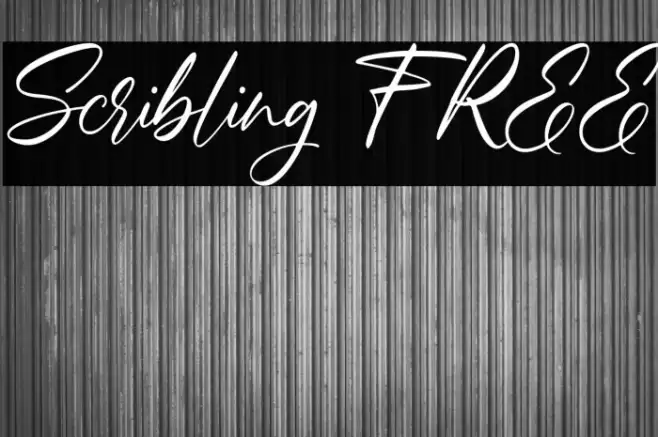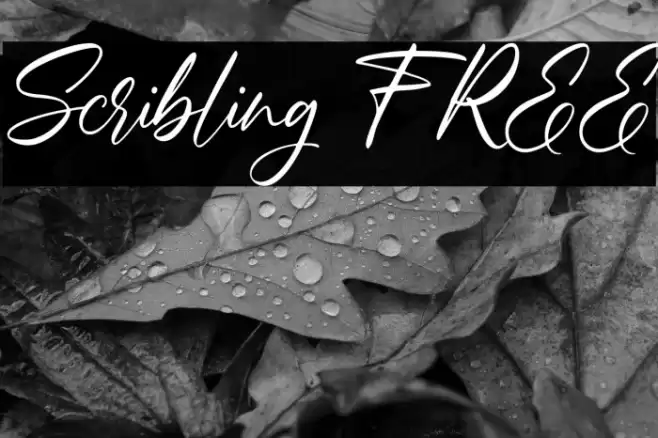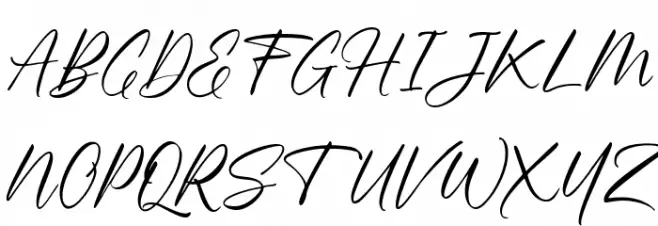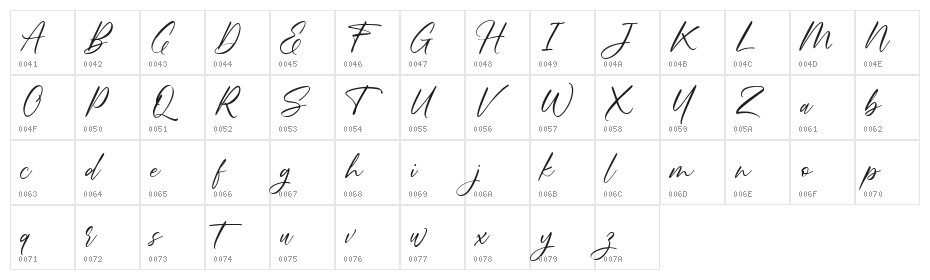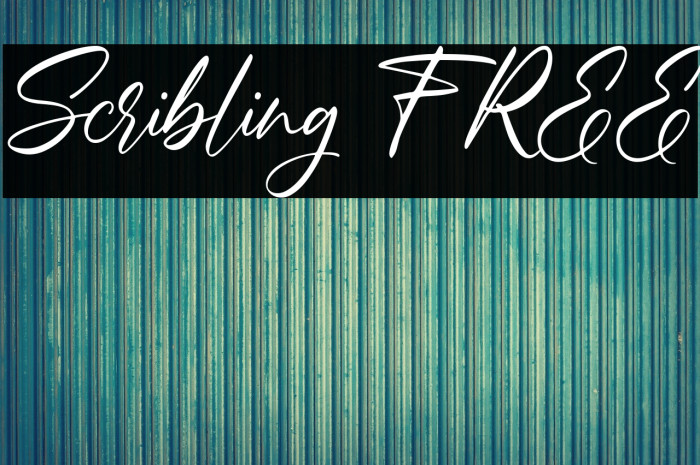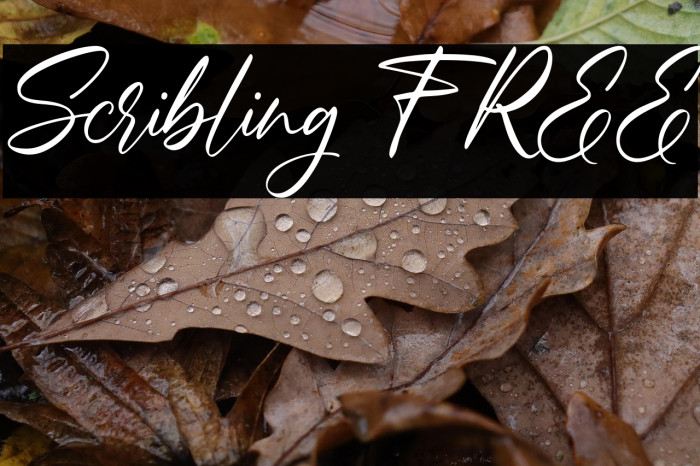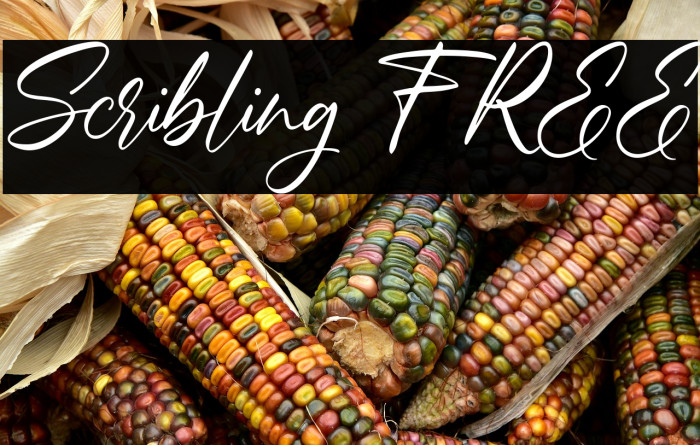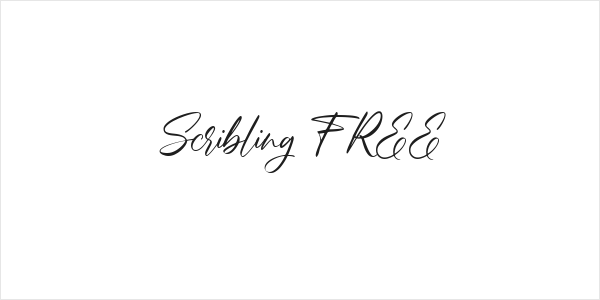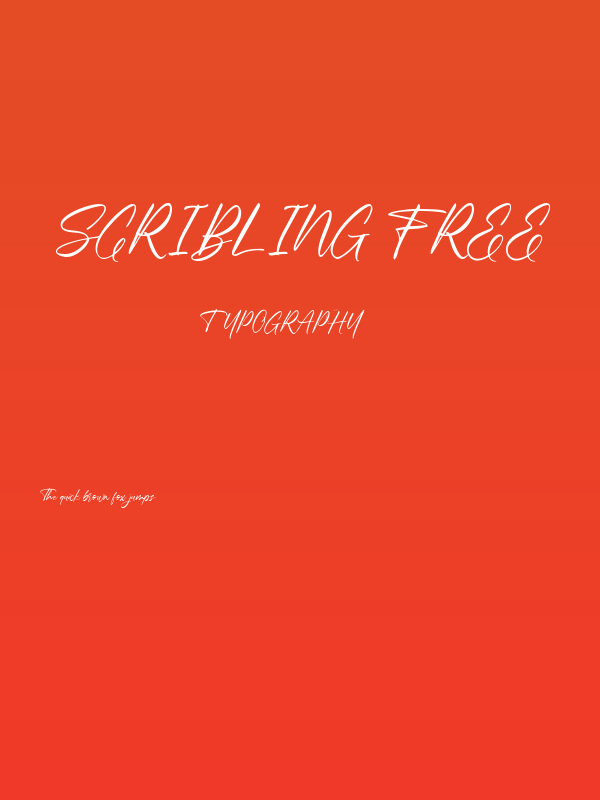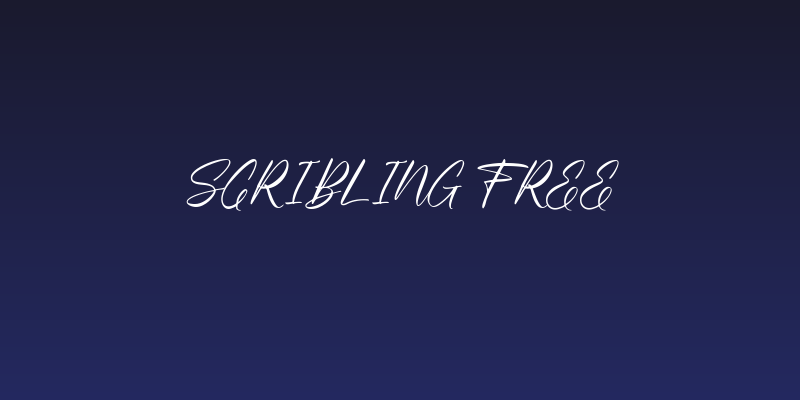
Scribling FREE Font
Scribling FREE Description
This font exudes a lively and dynamic handwritten style, characterized by its fluid and elegant cursive strokes. The letters are connected in a smooth, flowing manner, giving it a natural and personal touch. The uppercase letters maintain a consistent height, while the lowercase letters exhibit a playful variation in size, adding to its charm. The font's strokes are moderately thick, providing a balanced contrast that enhances readability while retaining its artistic flair. Its overall appearance is both sophisticated and approachable, making it suitable for a variety of creative applications.
A lively, elegant handwritten font with fluid cursive strokes from Regular fonts.
- Proposed Projects: Ideal for wedding invitations, greeting cards, personal branding, and artistic projects.
- Use Case: Logos, Invitations, Artistic projects